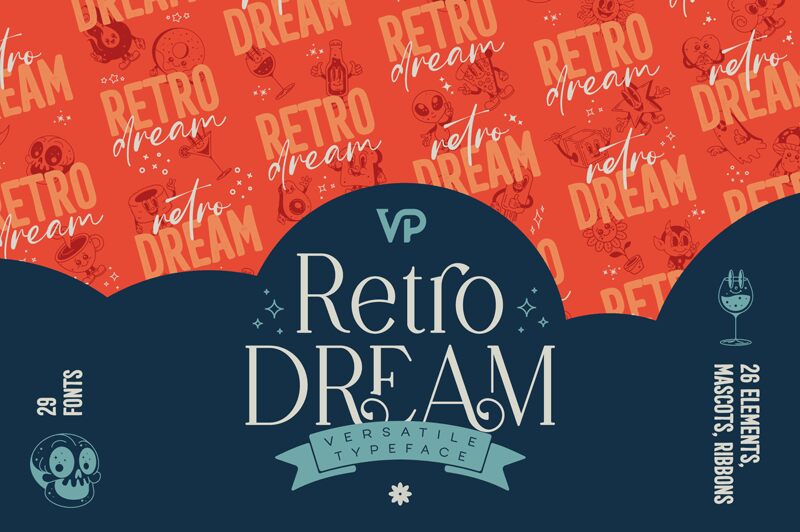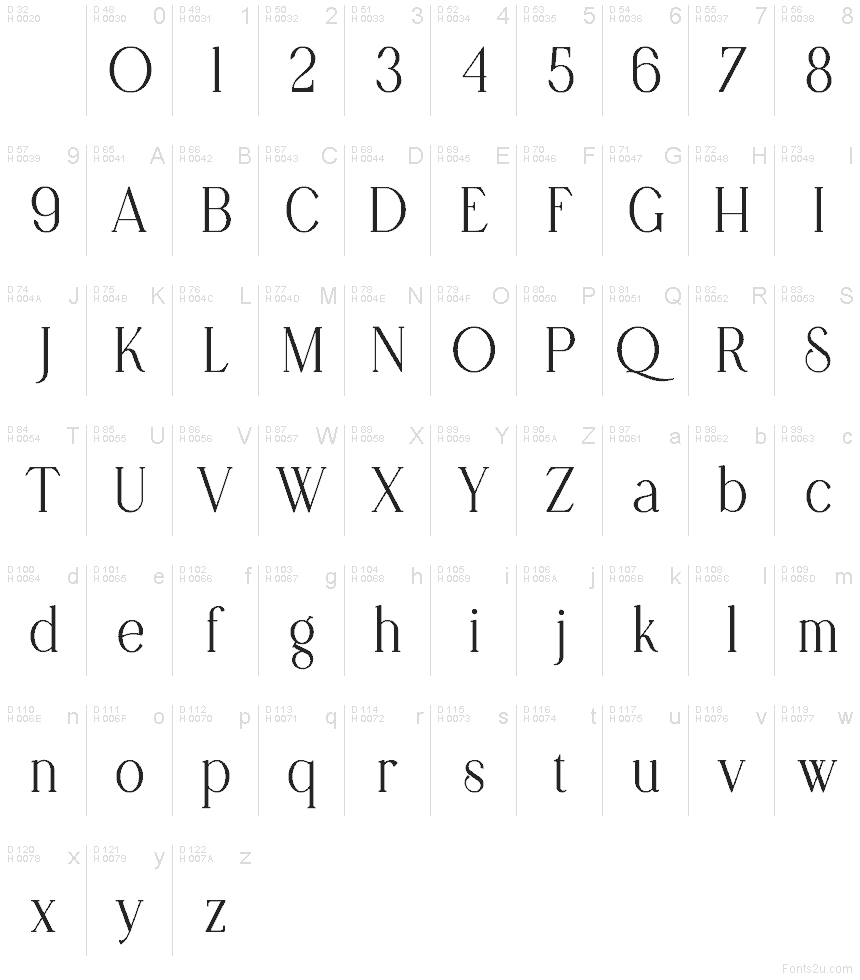
Retro Dream Serif Free Demo
Retro Dream Serif font by VPcreativeshop is a free retro serif typeface that solves a common challenge: getting vintage flair without the heavy, kitschy baggage. Its slender stems, gentle flared endings, and generous breathing room give headlines a graceful, book-jacket feel—quietly nostalgic, never noisy. Within the Retro Dream family, this cut feels crisp and inky, with a measured rhythm that keeps lines looking tidy at larger sizes.
Using Retro Dream Serif, you can bring character to brand wordmarks, boutique packaging, editorial titles, event posters, wedding suites, and café menus. The spacing stays calm, so messages read smoothly while still feeling special. This free font shines on big, airy layouts; pair it with a plain grotesque sans for body text, and tighten tracking a touch for punchy headlines.